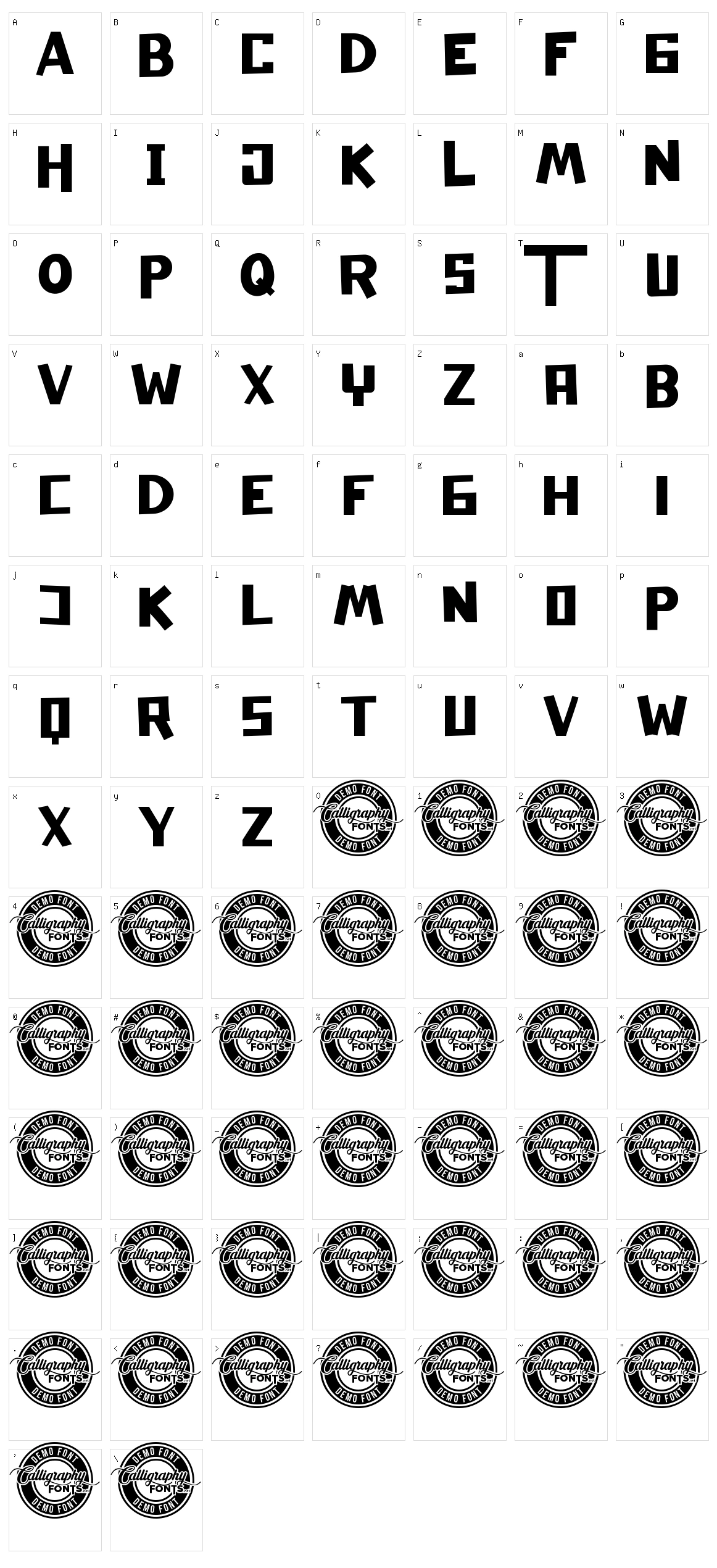
The free font Ultramoon is carefully designed by Calligraphy Fonts, showcasing a thoughtful balance of creativity and usability and falls under the Cartoon font style. When you download the ZIP file, it contains only 127.45 KB of font files, making it lightweight and quick to download. Please review the license details below to understand permitted usage and distribution rights. If license information is not available, we recommend using this font for personal projects only or contacting the author directly for commercial usage permissions.